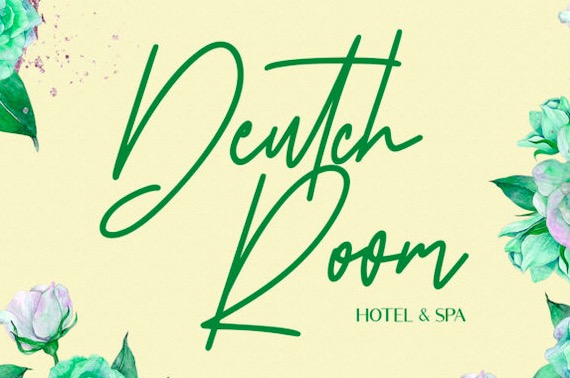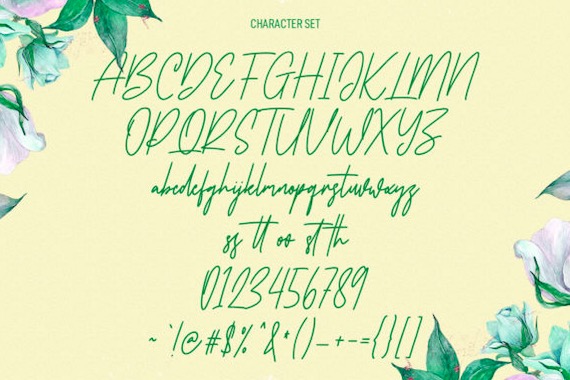
Antrophys is a simple handwritten script font that was created and shared by Maulana Creative along with a regular mono-line stroke, unique ligatures, and fun letters. Antrophys font is good for logo design, Social media, Movie Titles, Books Titles, short text even long text. Make stunning work with Astrophys font!
Antrophys Handwritten Script Font
Publisher: Maulana Creative